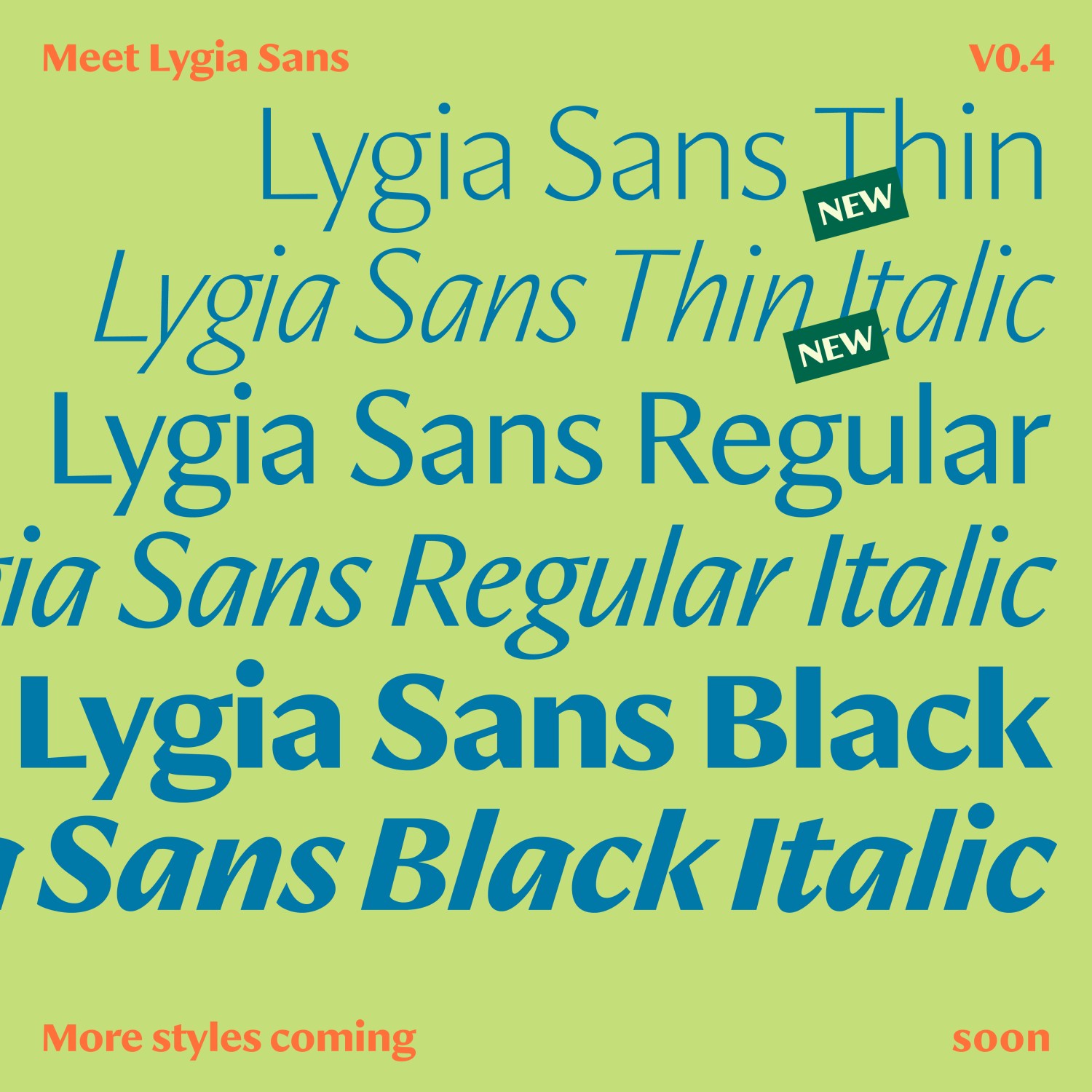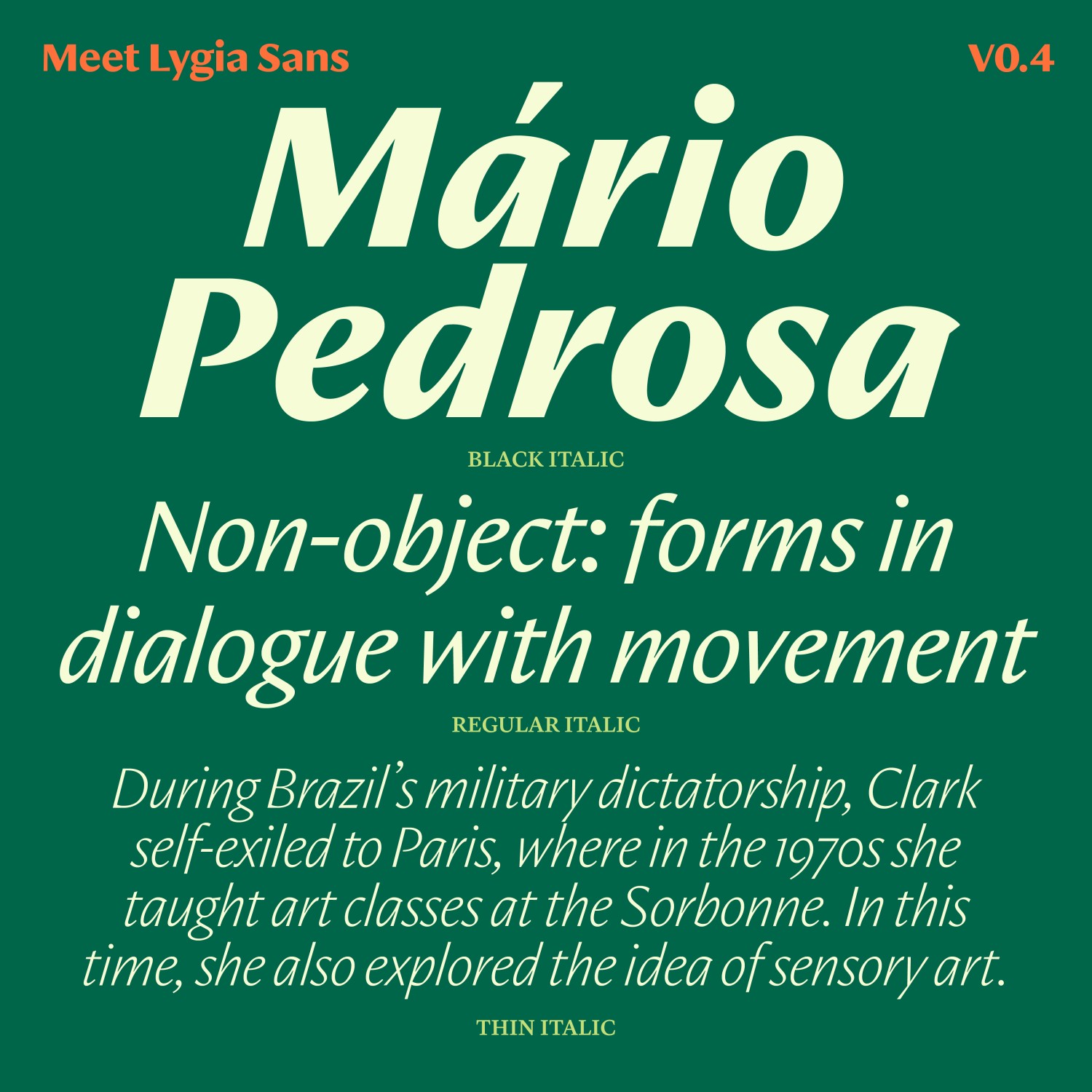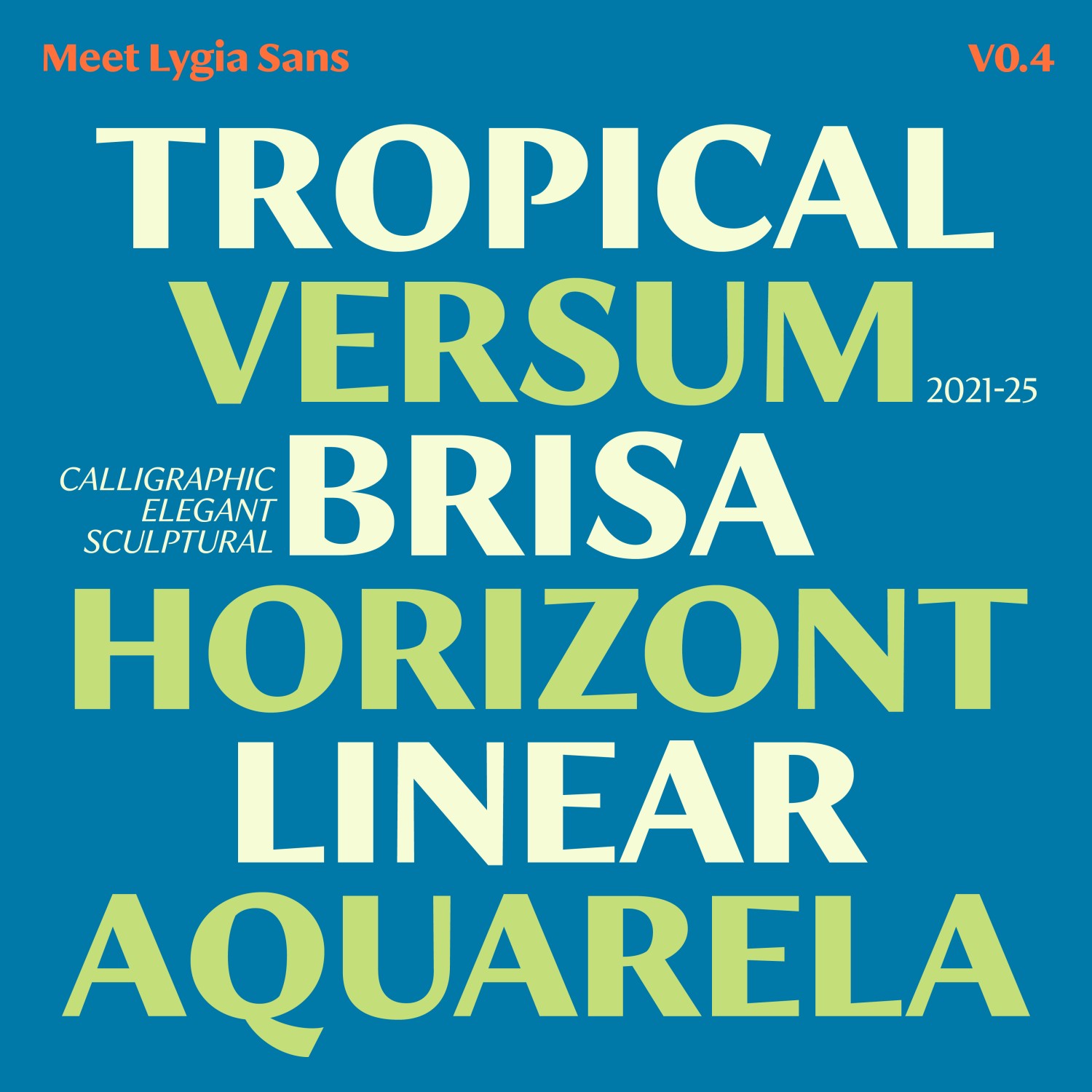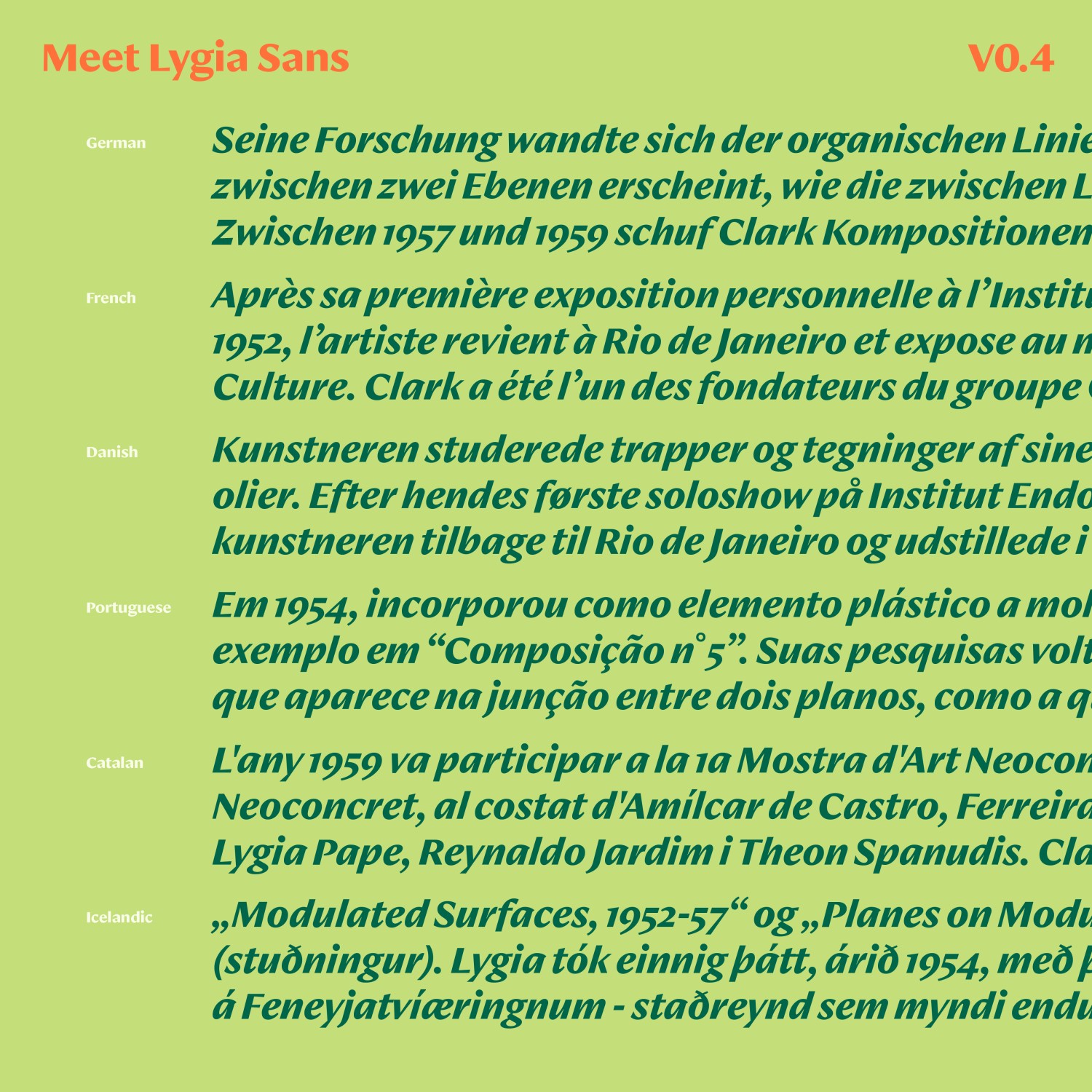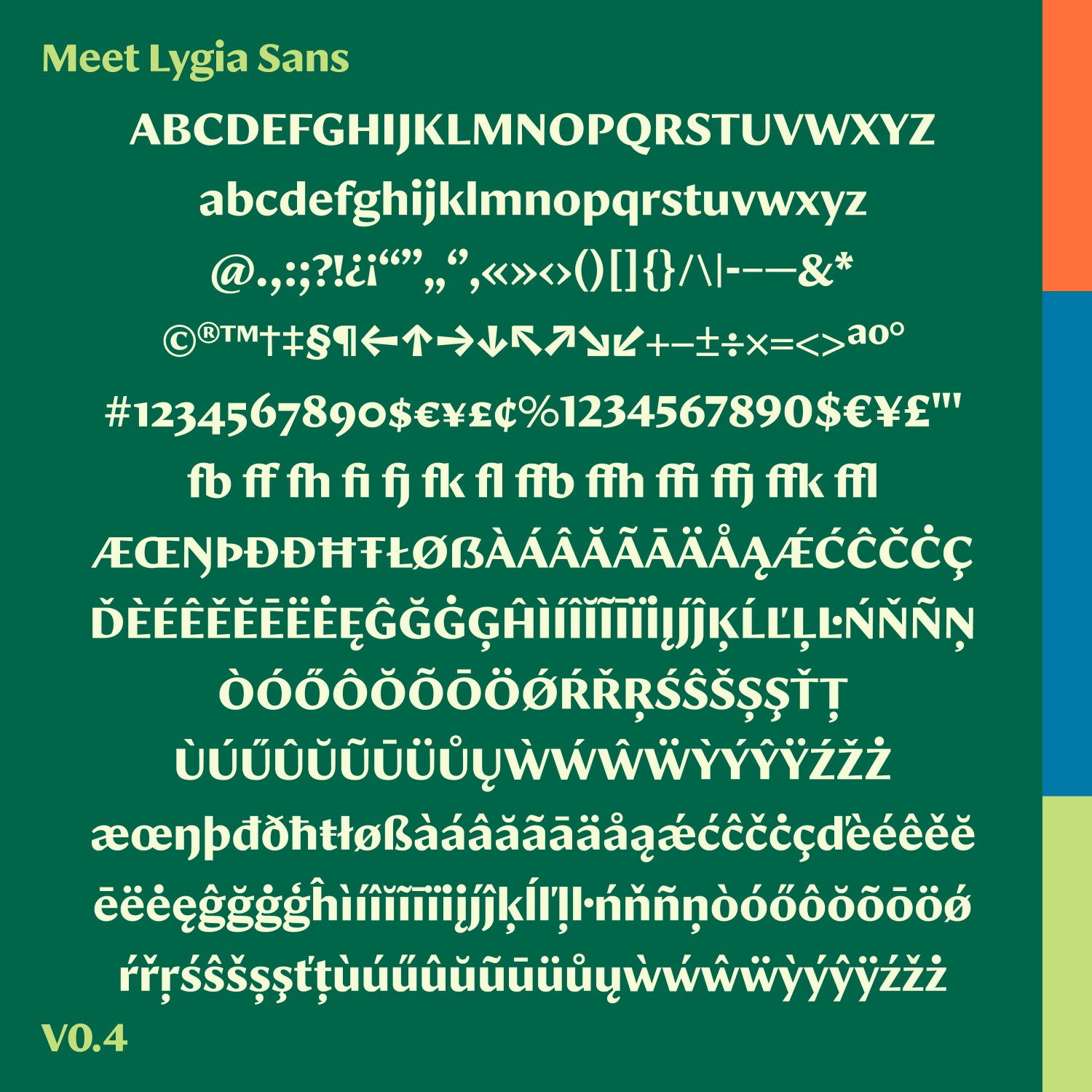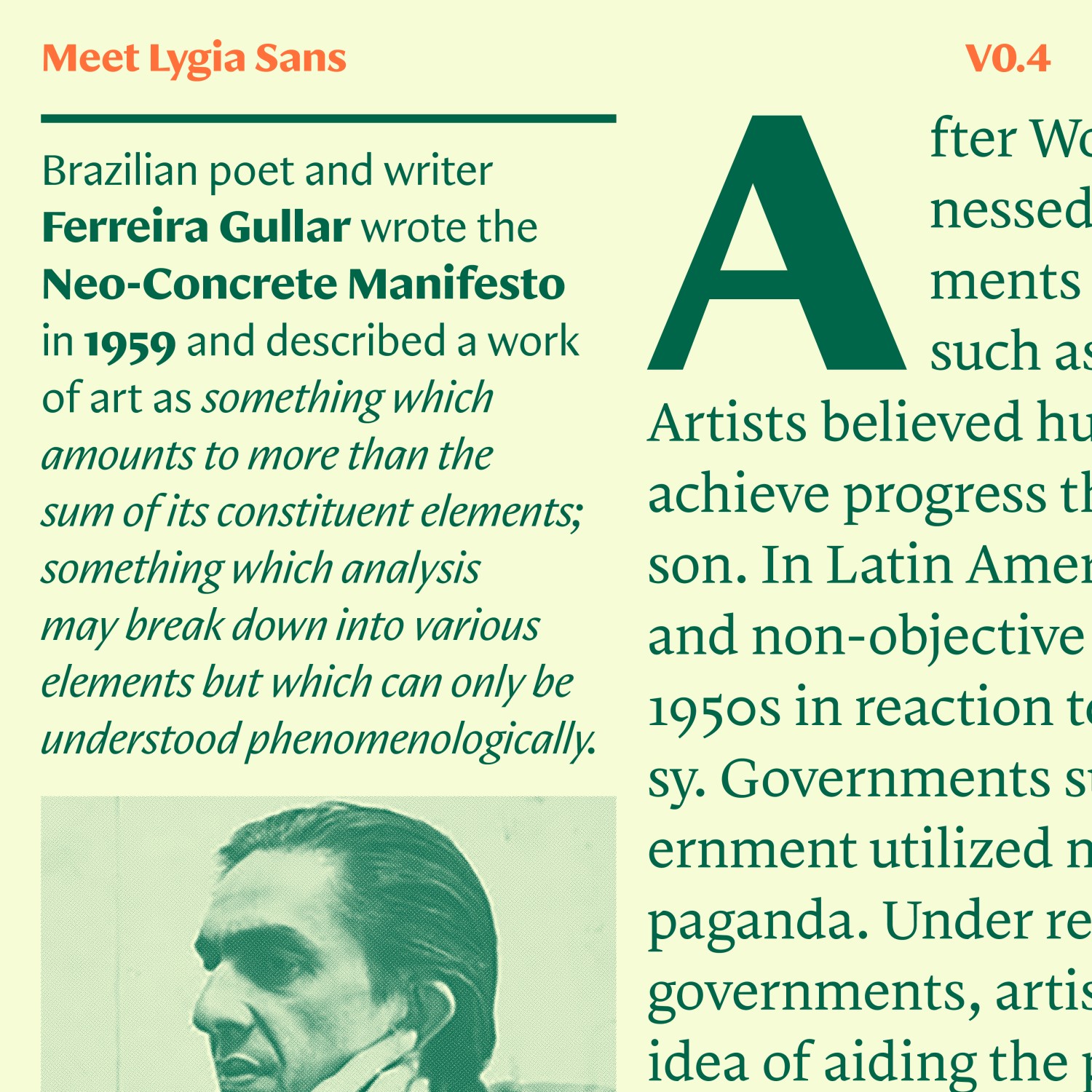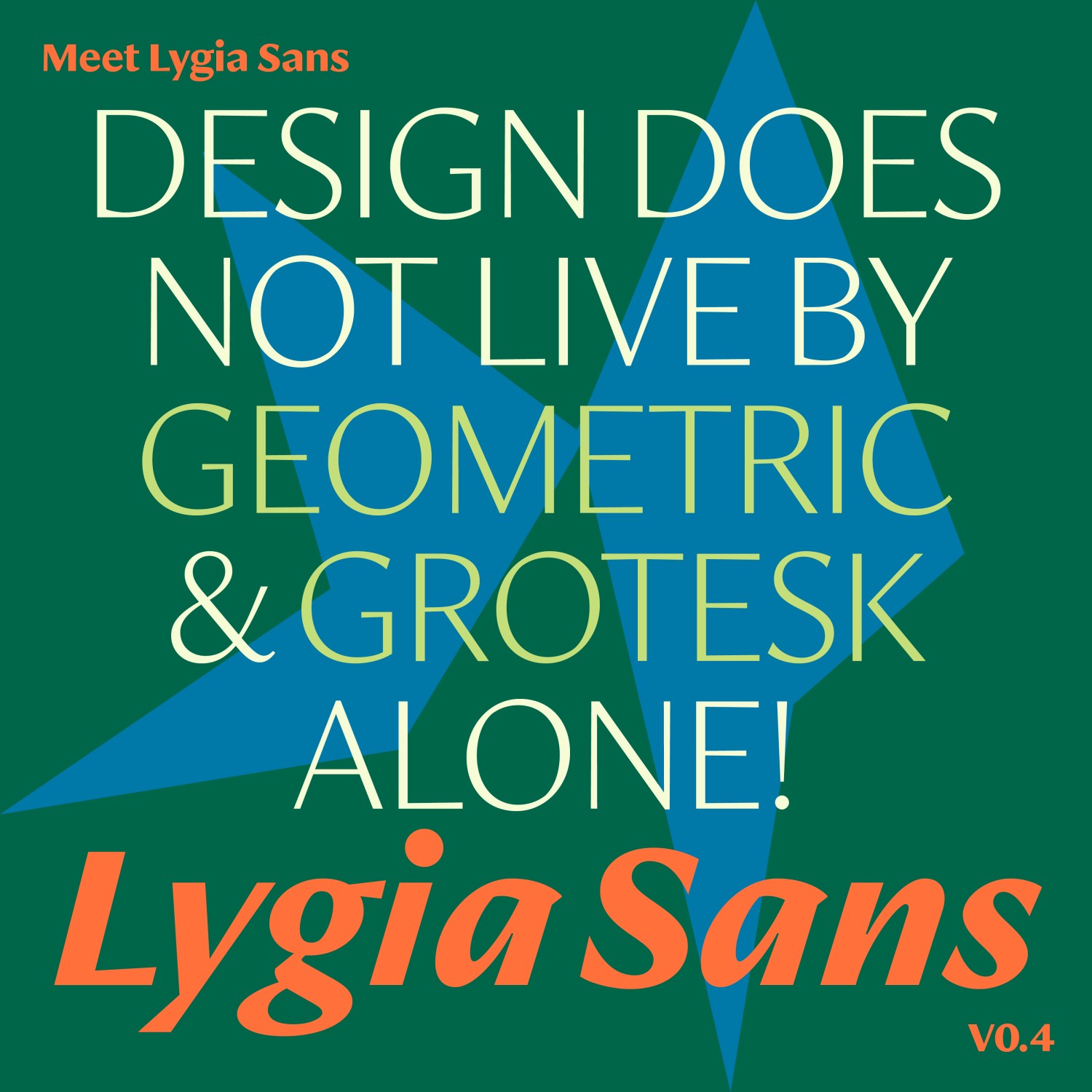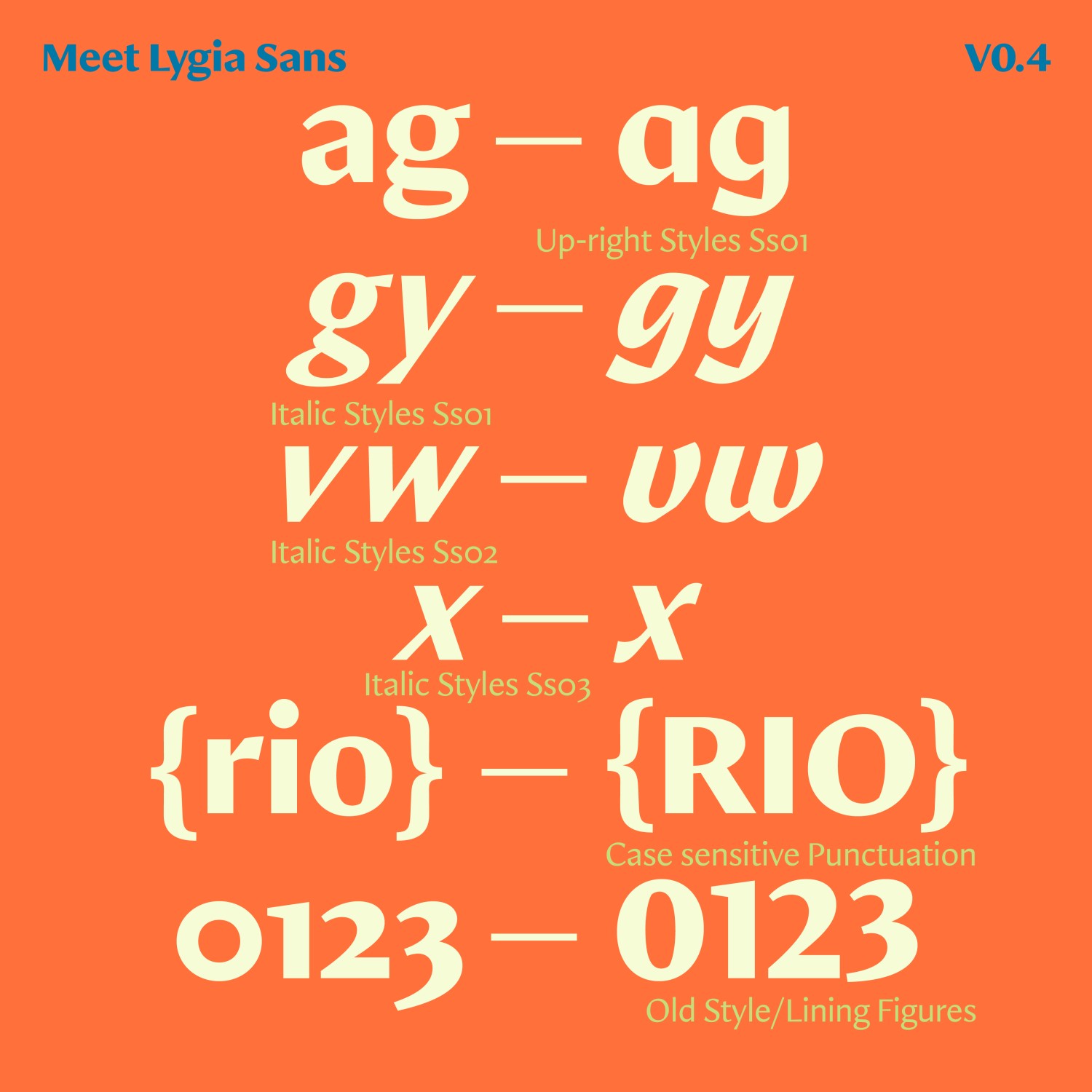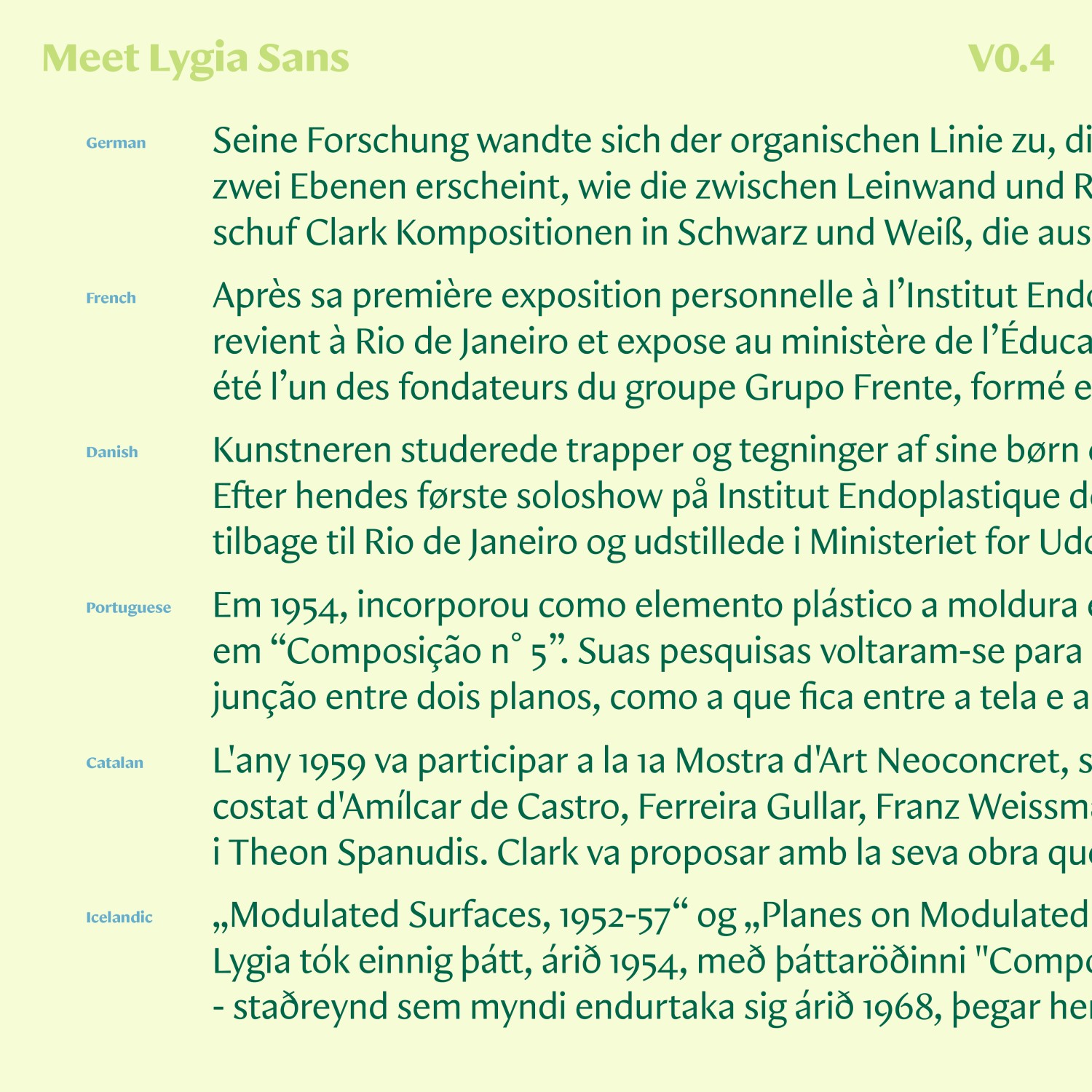
Lygia Sans
6 Styles | Flavia Zimbardi
Lygia Clark was a Brazilian artist that along Amilcar de Castro, Franz Weissmann, Lygia Pape and poet Ferreira Gullar, co-founded the Neo-Concrete Movement. Her work dealt with the relationship between inside and outside, and, ultimately, between self and world.
In the series Modulated Surfaces (1954-58), a complex system of juxtaposed planes are separated by very tight gaps—as the only “lines” in the composition.
Inspired by Rio de Janeiro’s geography, architecture, and expression of the Neo-Concrete movement, Lygia Sans was designed to match its serif companion in color and rhythm while embracing a more calligraphic personality—echoing the warmth of Warren Chappell’s Lydian (1938). A versatile family ideal for editorial systems, cultural projects, and contemporary identities.
• 9th Latin American Typography Biennial (Latinos Biennial), 2022
- Designer: Flavia Zimbardi